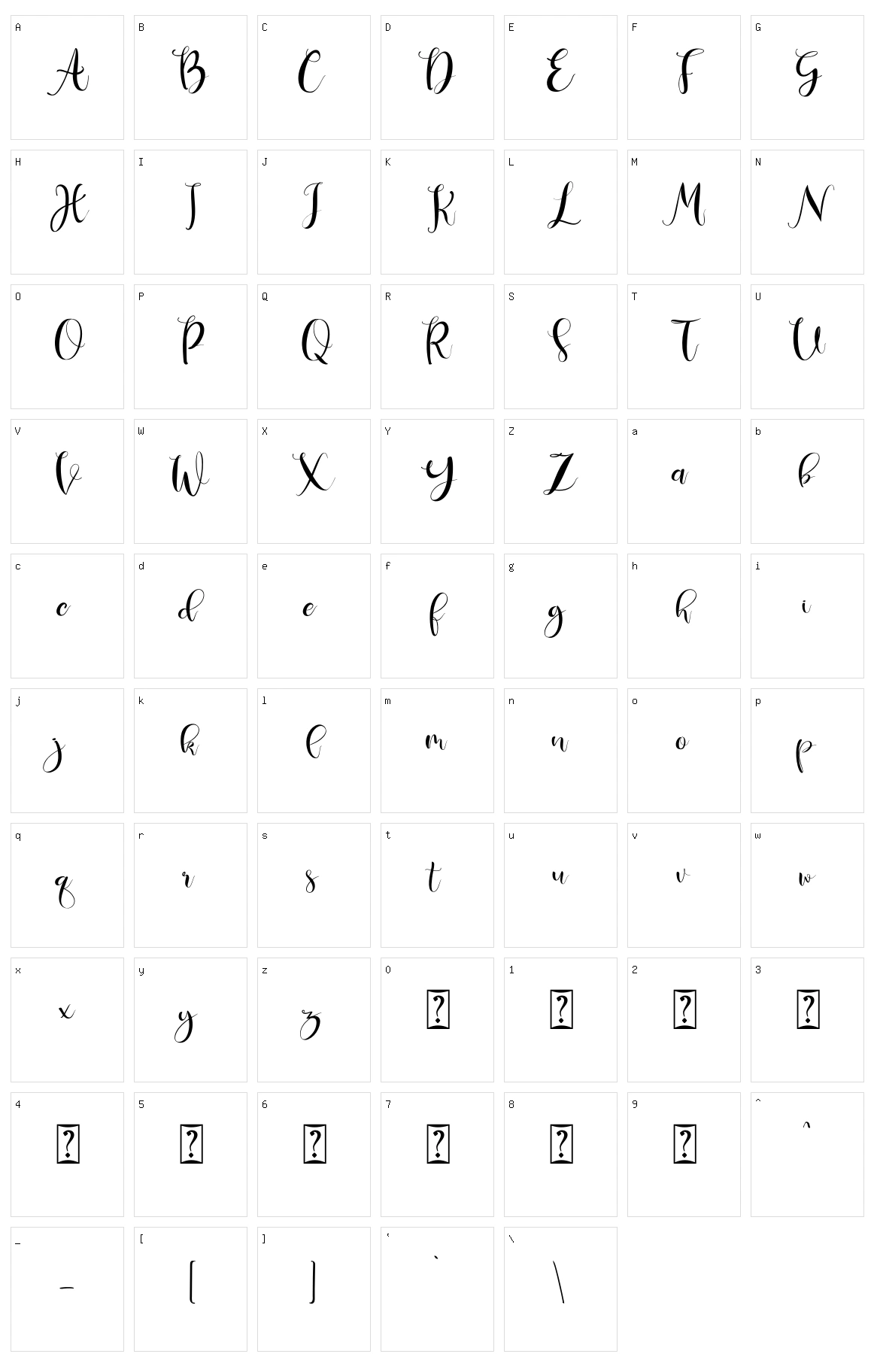
The free font Deliciously Sans is carefully designed by Din Studio, showcasing a thoughtful balance of creativity and usability and falls under the Script font style. When you download the ZIP file, it contains only 56.07 KB of font files, making it lightweight and quick to download. Please review the license details below to understand permitted usage and distribution rights. If license information is not available, we recommend using this font for personal projects only or contacting the author directly for commercial usage permissions.